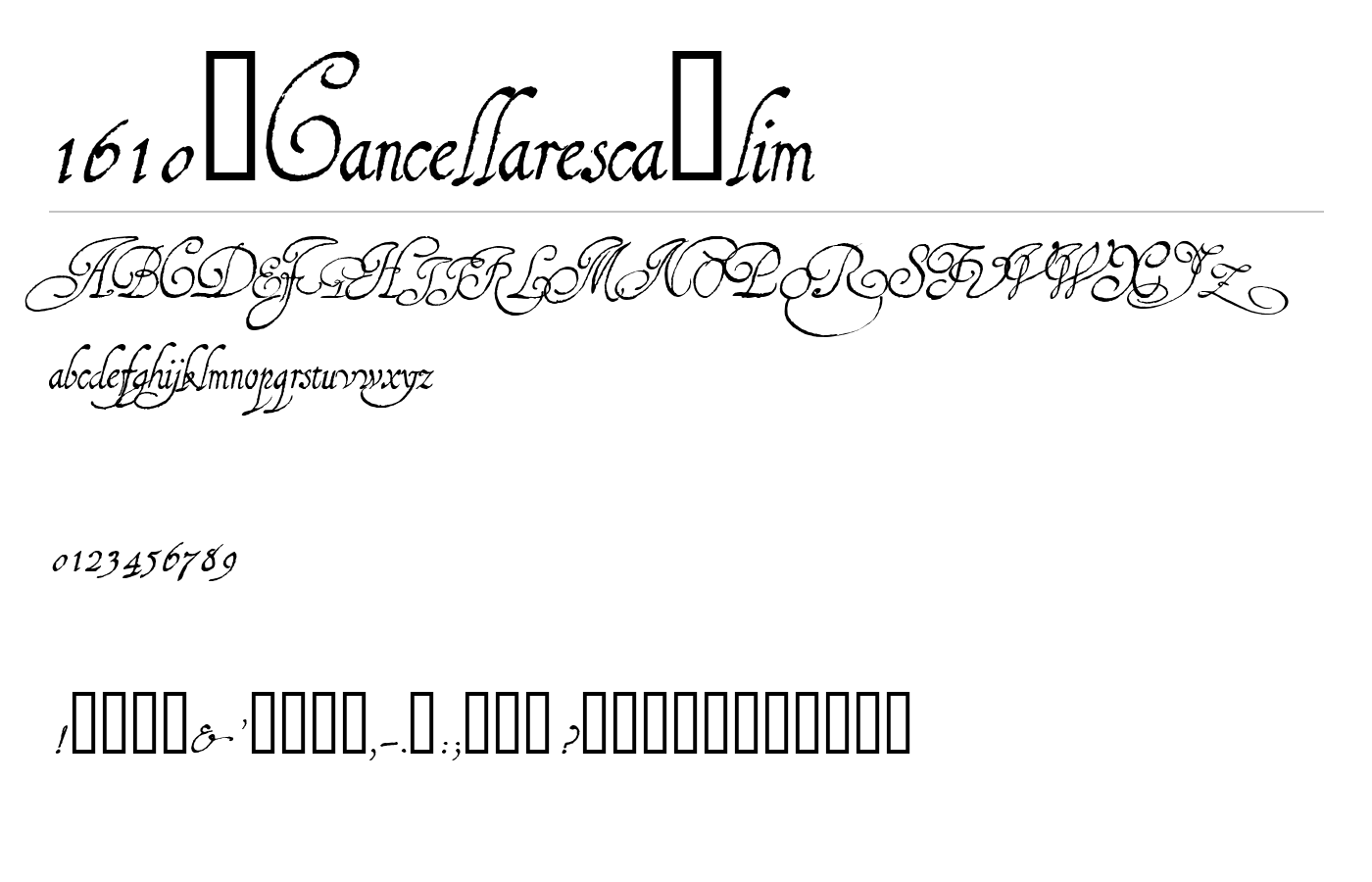
Scripts Font is an elegant and highly decorative script typeface that captures the fluidity and artistry of traditional calligraphy. With its delicate, flowing strokes, elaborate swashes, and fine contrast between thick and thin lines, it conveys a refined, vintage charm ideal for luxury branding, formal invitations, and artistic projects where sophistication and grace are key. This font works best in headlines or decorative text where its intricate details can shine without sacrificing readability.
scripts Font
About scripts Font
| Font family | scripts Font |
| Designer | Gilles Le Corre |